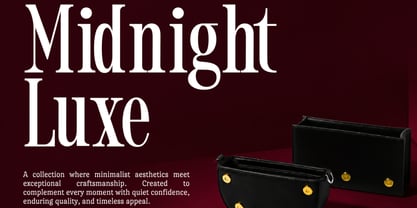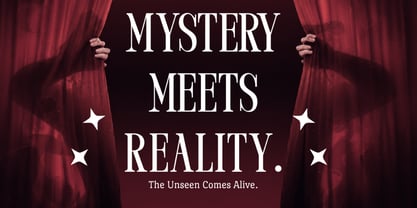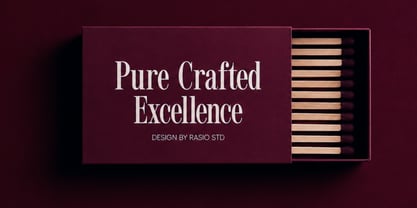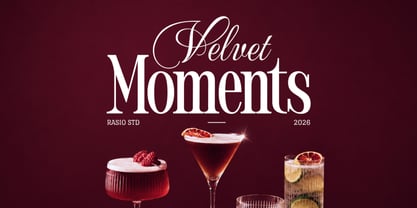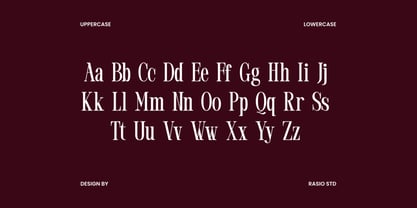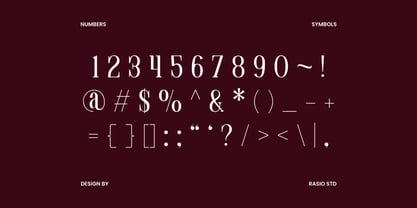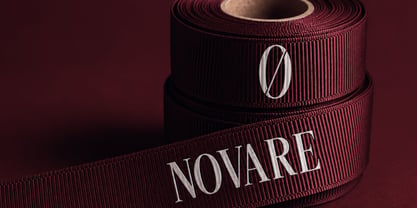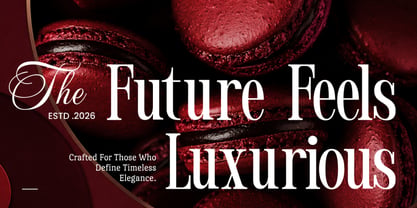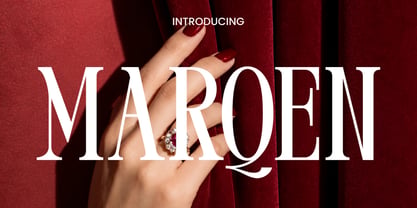
Marqen
by Rasio Studio
The Marqen Font Family was designed by Fajar Indra and published by Rasio Studio. Marqen contains 1 styles. More about this family
Marqen is a refined condensed typeface defined by high contrast strokes, narrow proportions, and elegant serif details. Its tall letterforms and sculpted curves create a sophisticated editorial character with a strong luxury presence. The distinctive structure delivers dramatic visual impact for display typography while maintaining a polished and timeless appearance.
Relevance and Use Case is perfect for high-contrast elegance and condensed proportions to modern editorial and luxury-focused design. Its tall, refined letterforms create a commanding presence for fashion campaigns, magazine titles, beauty identities, premium branding, sophisticated packaging, and visual compositions that require dramatic yet polished typography.
Designers: Fajar Indra
Foundry: Rasio Studio